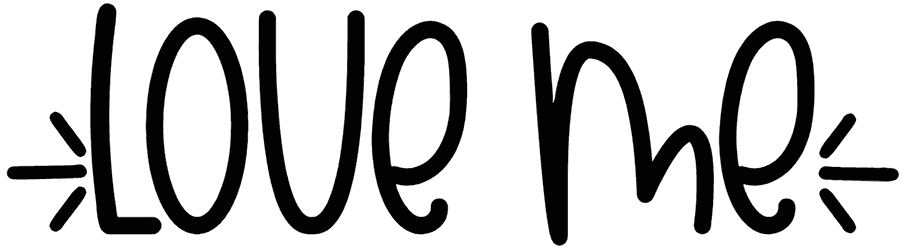
Love Me Font
It takes just one look at the cute style of Love Me to realize they couldn’t have done a better job naming this baby font. With such light characters bending so smoothly, you can make anyone fall in love with your artwork.
It can be the Valentine’s Day font you needed all this time, but first things first. See if you’re okay working with a single character set, consisting of lowercase and uppercase, and then find someplace to put it.
Love Me is an enchanting handwritten font. This versatile typeface has a wide spectrum of applications, ranging from greeting cards to headlines, and is guaranteed to add a romantic feel to your next project.
Love Me is perfect for product packaging, branding projects, magazines, social media, weddings, or just used to express words above the background.